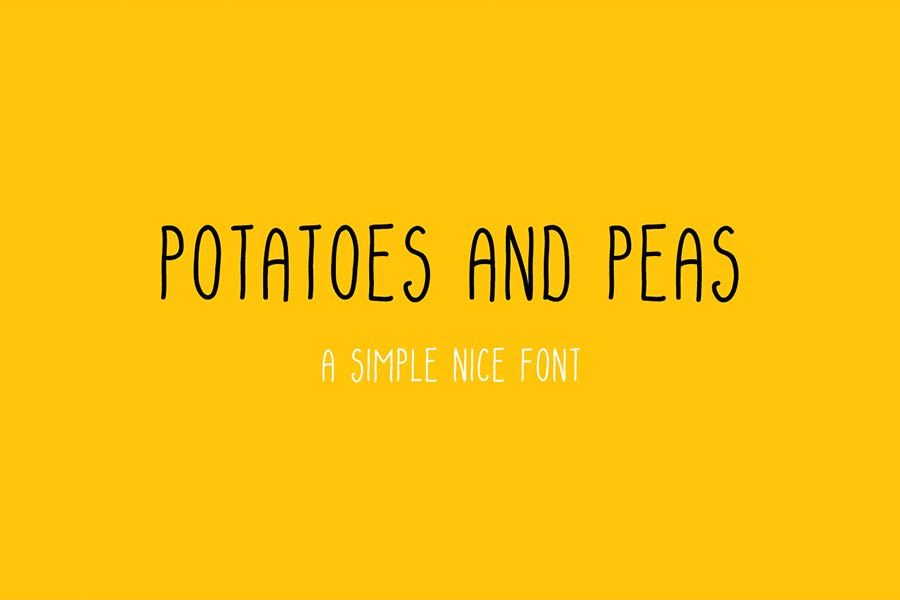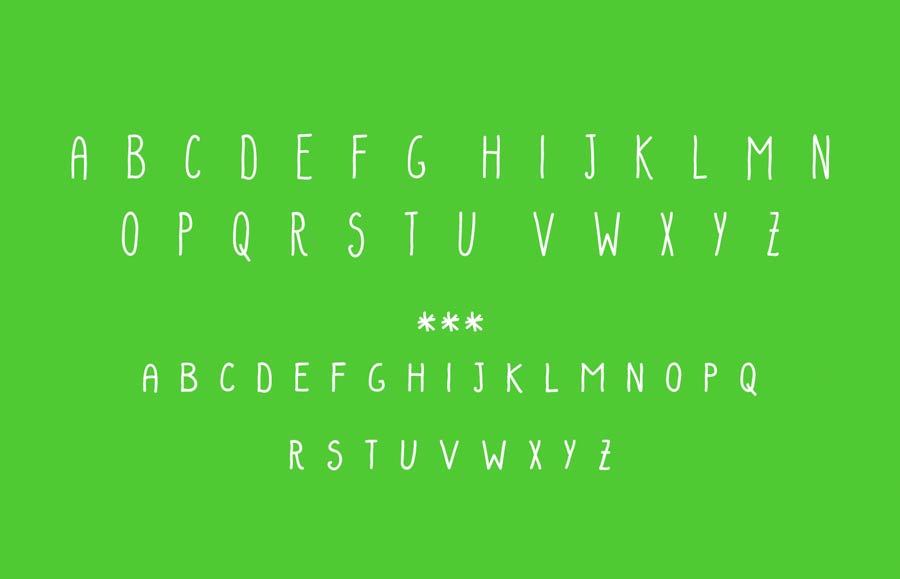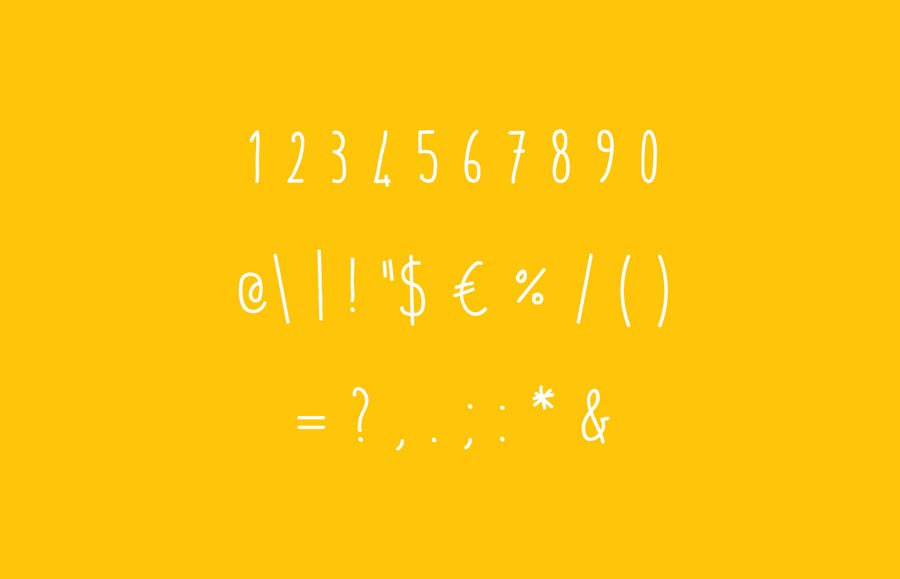
As the name suggests, Potatoes and Peas is a simple casual handwriting font that comes with multilingual support. The character strokes are clean and it comes with uppercase and small caps. With its friendly look, Potatoes and Peas is suitable for any graphic design, logos, signs and banner works.
- Designer: Marco Ballarè
- Category: Handwriting